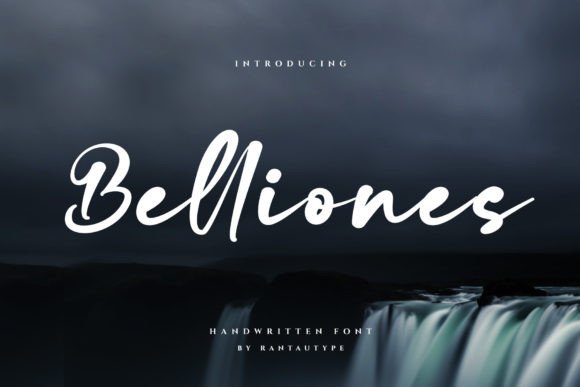
Behold, the magnificent Belliones Font, a script font crafted with elegance and distinction, ready to transform your creative endeavors into masterpieces. Immerse yourself in the world of Belliones, where individuality and charm collide, creating a font that's not just a tool but an art form.
With its captivating swirls and graceful curves, Belliones dances across your screen, captivating your audience with its undeniable allure. Its delicate strokes and enchanting ligatures evoke a sense of timeless beauty, perfect for crafting logos that exude sophistication and uniqueness. Let your brand shine with the brilliance of Belliones, leaving a lasting impression that speaks volumes about your dedication to excellence.
Unleash your creativity and embark on a journey of boundless possibilities with Belliones. Its versatility knows no bounds, seamlessly adapting to a myriad of projects, from promotional advertisements that ignite curiosity to heartfelt quotes that resonate with your audience. Let your imagination soar as you create packaging designs that captivate customers, t-shirt designs that make a statement, and merchandise that carries your brand's essence with pride.
Delve into the world of social media and let Belliones amplify your presence. Its enchanting characters will make your posts shine, attracting followers with their magnetic charm. Craft posters that command attention, capturing the essence of your message with a font that speaks louder than words.
Belliones is more than just a font; it's an experience, a gateway to a world of creative fulfillment. It's the key to unlocking your true potential as a designer, empowering you to create designs that resonate with your audience, leaving a trail of admiration in your wake.